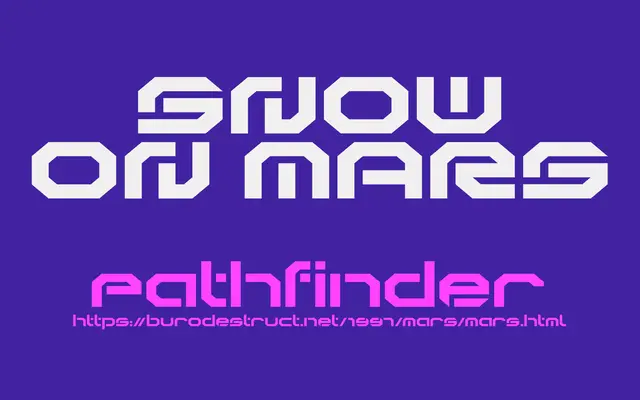
BD Doomed
Type Different · 1998
A squarish, techno-inflected display face from 1998, revived in 2024 with expanded Latin language support.
Originally designed in 1998, BD Doomed Squareup carries the angular, grid-influenced aesthetic of late-nineties digital typography. The 2024 update extended its character set to cover Danish, Dutch, French, German, Icelandic, Indonesian and a range of other European languages. It remains a single-style typeface suited to display settings where its rigid geometry reads as a deliberate stylistic choice.
A squarish, all-caps-styled display typeface with a pixel-influenced geometric construction, typical of late 1990s techno/digital display fonts. The name 'Squareup' underlines its angular, grid-based letterforms.